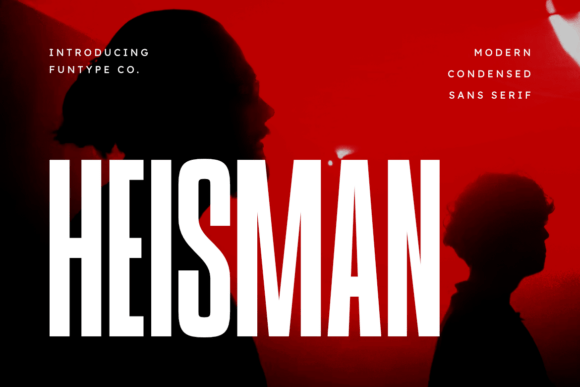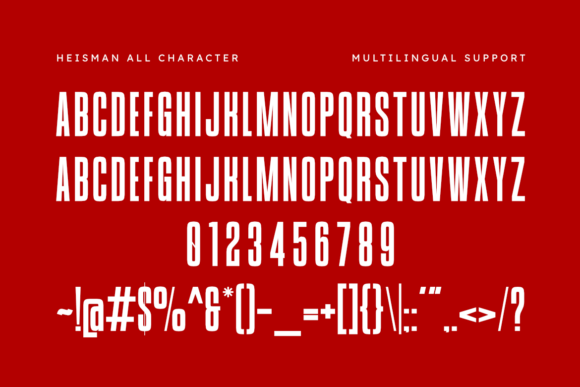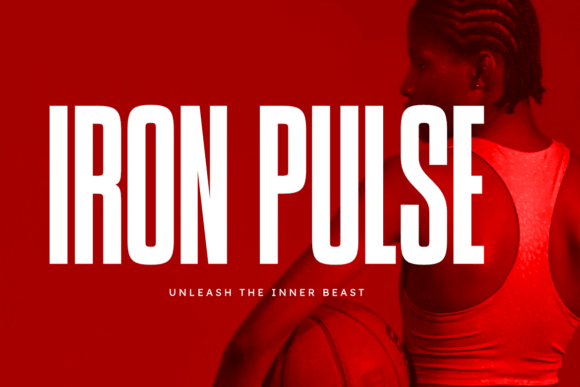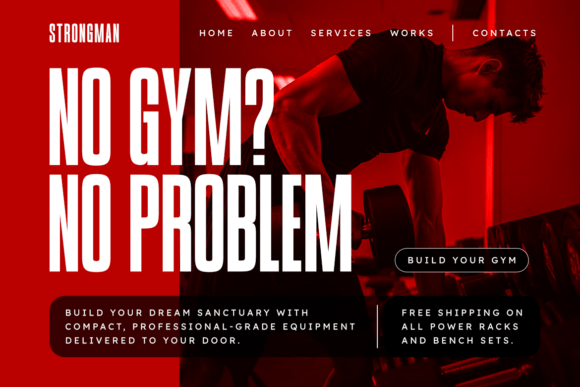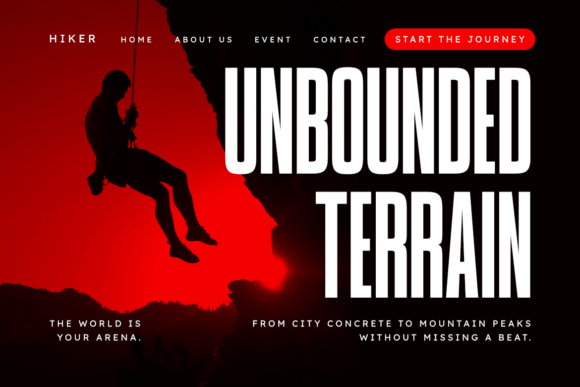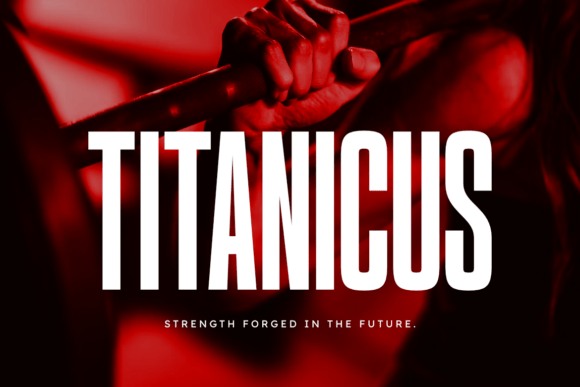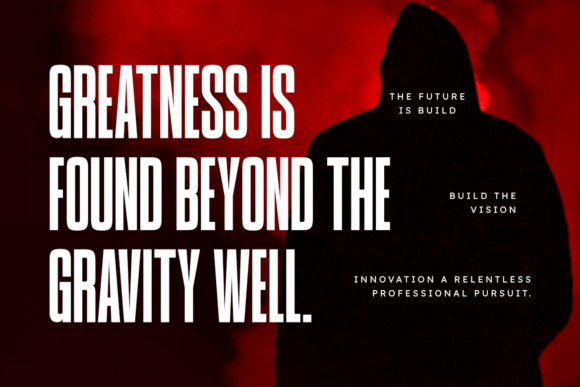
The Perfect Strike: Unlocking the Power of Heisman Font
You know that feeling when a design comes together and you just know it’s a winner? The thrill of seeing your ideas take shape and connect with your audience is what drives us as creatives. For me, it was the moment I stumbled upon Heisman Font – a bold and powerful sans serif font designed to make a statement. With its refined vertical structure and clean lines, this font is the perfect tool for crafting high-impact typography that demands attention.
Heisman Font is more than just a font – it’s a game-changer for designers looking to elevate their work. Whether you’re creating sports logos, industrial branding, or digital posters, this font delivers a confident and balanced design that gives your visuals a striking, professional look. And with its versatility and compatibility across all design platforms, you can trust that Heisman Font will help you make a lasting impression.
Heisman Font Key Features
- Font Family: Heisman is a custom font family designed specifically for the Heisman Trophy. It is available in various weights, including Light, Regular, and Bold.
- Unique Characteristics: Heisman Font features a distinctive, hand-crafted design that incorporates elements of classic typography, making it a unique and recognizable font for the Heisman Trophy brand.
Heisman Font Review
Overall, I’d say the Heisman font is a great addition to any design project. ✨ It has a modern, sleek look that works well for sports-related projects or any design that needs a touch of athleticism.
- ✨ **Unique Character**: The Heisman font has a unique character that sets it apart from other fonts. It’s bold, yet elegant, making it perfect for creating eye-catching designs.
- ✨ **High Legibility**: The font is highly legible, even at smaller font sizes, which makes it perfect for use in various design projects.
- ✨ **Customization Options**: The font comes with various customization options, including different weights and styles, which makes it easy to adapt to different design requirements.
However, I do have a few reservations about the font. ⚠️
- ⚠️ **Limited Font Sizes**: While the font is highly legible, I found that it starts to lose its shape at font sizes below 12 points. This can be a bit of a limitation, especially for designers who need to use the font at smaller sizes.
- ⚠️ **Not Suitable for Body Text**: While the font is great for headlines and titles, it’s not the best choice for body text. It can be a bit too bold and overwhelming for long blocks of text.
Overall, I’d say the Heisman font is a great addition to any design project, but it’s not a one-size-fits-all solution. With a little creativity and customization, it can be used to create some truly amazing designs.
Tips for Getting the Most Out of Heisman Font
For optimal results, use Heisman Font for headings and titles to create a bold and eye-catching effect. Experiment with different font sizes and colors to achieve the desired look.